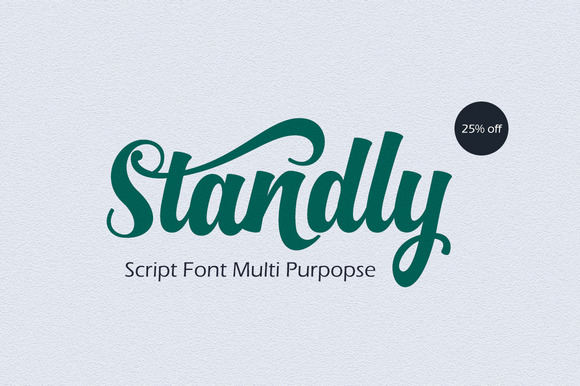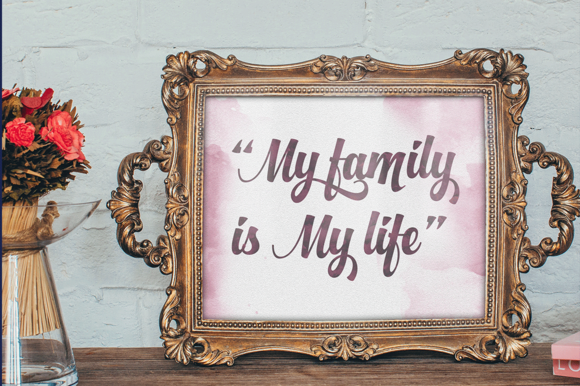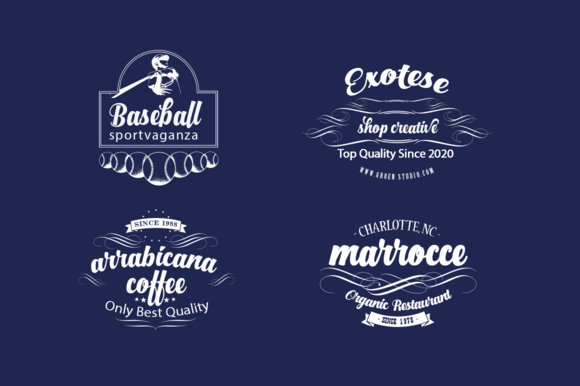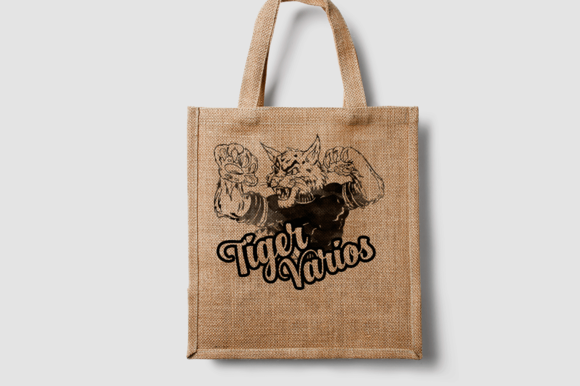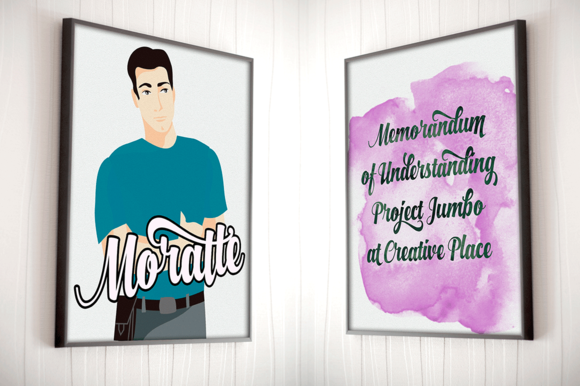
Standly Font
About Standly Font
Standly is a beautiful digitally drawn brush script font. This font contains beautiful smooth characters that are easy to read.
This font features:
Contextual Alternates
Standard ligatures
Discretionary ligatures
Stylistic Alternates
Stylistic sets